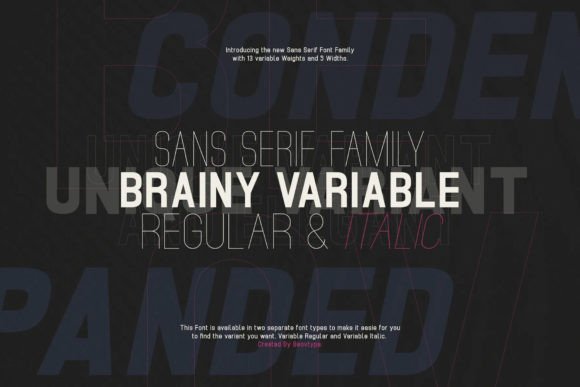
The Ultimate Guide to Brainy Variable Font: A Designer’s Best Friend
I’ll never forget the time I was working on a project for a client who needed a modern, clean font that would make their website and marketing materials stand out. I spent hours scouring the internet for the perfect font, but nothing seemed quite right. That was until I stumbled upon Brainy Variable, a game-changing sans-serif font that has since become a staple in my design toolkit.
An Honest Review of Brainy Variable
So, what makes Brainy Variable so special? Let’s dive into the good stuff and a few quirks I’ve discovered.
- ✨ Clean and straightforward design: Brainy Variable is perfect for projects that require a modern, minimalist aesthetic.
- ✅ Ease of readability: The font is incredibly easy to read, making it ideal for both digital and print projects.
- 💡 Versatility: Brainy Variable can be used for a wide range of designs, from websites to posters, and even social media graphics.
While Brainy Variable is an excellent font, there are a few things to keep in mind:
- ⚠️ Limited decorative options: As a sans-serif font, Brainy Variable doesn’t offer a lot of decorative options, which might be a drawback for some designers.
- 🤔 Not ideal for body text: While Brainy Variable is easy to read, it’s not the best choice for long blocks of body text. It’s better suited for headings, titles, and short paragraphs.
The Story Behind Brainy Variable
Brainy Variable was designed with the goal of creating a clean, modern sans-serif font that would be easy to read and versatile enough for a wide range of design projects. The designer drew inspiration from classic sans-serif fonts, but with a fresh and contemporary twist.
Q: What is Brainy Variable?
A: Brainy Variable is a clean and straightforward sans-serif font designed for both digital and print projects.
Q: Is Brainy Variable suitable for body text?
A: While Brainy Variable is easy to read, it’s better suited for headings, titles, and short paragraphs. For long blocks of body text, consider a font specifically designed for readability.